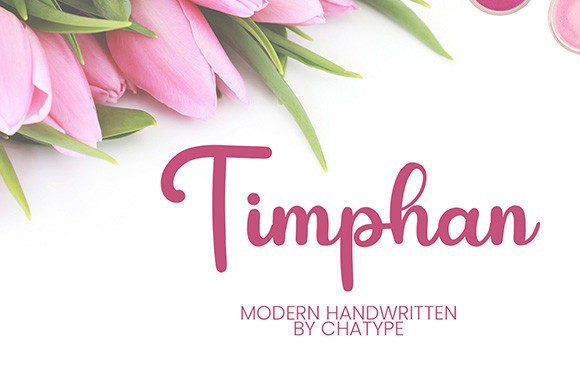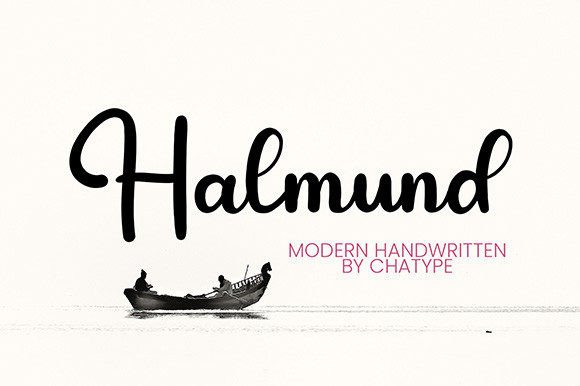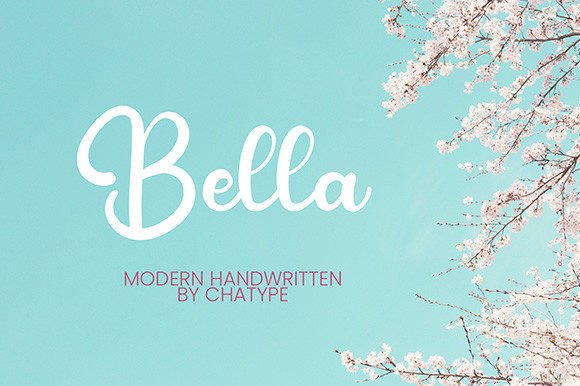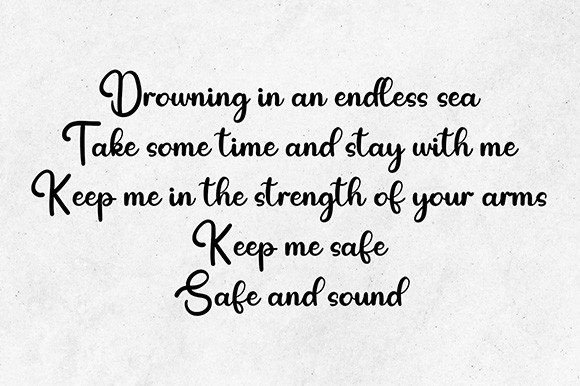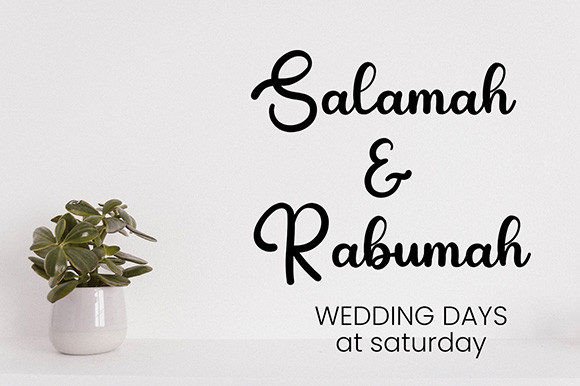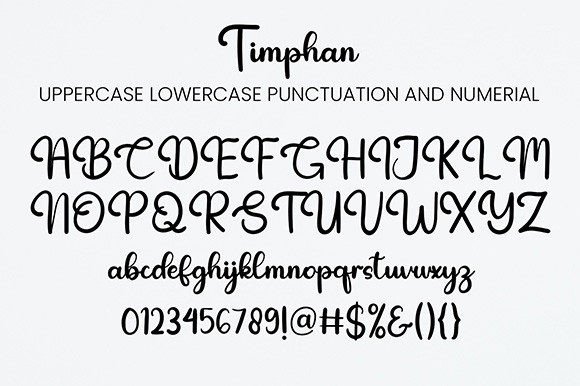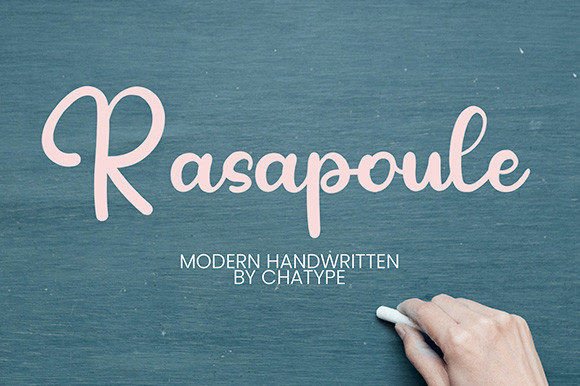
Timphan Font
About Timphan Font
The Timphan Font Download introduces a stylish handwritten typeface designed to bring elegance and versatility to your projects. With its modern curves and handcrafted appeal, this font adds personality and charm to everything from branding to personal crafts. Whether you are creating blog headers, fashion graphics, or memorable invitations, Timphan delivers a unique and expressive look.
This font was created with both designers and everyday users in mind. Its natural flow ensures that it looks beautiful in print as well as digital use, while its clean readability keeps designs professional and polished. With Timphan, your projects can reflect both style and personality effortlessly.
Features of Timphan Font
The Timphan Font Download includes a range of features that make it a standout choice:
• Handwritten script style with smooth, modern lines
• Versatility across digital and print projects
• Elegant yet casual look that adapts to multiple themes
• Great readability even in smaller sizes
Best Uses for Timphan Font
This font is highly adaptable, making it ideal for creative professionals and hobbyists alike. Some popular uses for the Timphan Font Download include:
• Logos and branding – Give your brand an elegant, handcrafted touch
• Quotes and posters – Make inspiring words stand out with stylish lettering
• Fashion and apparel – Design clothing tags, t-shirts, or labels with personality
• Invitations and stationery – Perfect for weddings, parties, or special events
• Blog headers and digital design – Create memorable graphics for websites or social media
• Craft projects – Add flair to handmade goods, gifts, or decorations
Why Choose Timphan Font
The Timphan Font Download stands apart because it combines artistic style with practical usability. While many script fonts may lean heavily toward decoration, Timphan strikes a balance between elegance and readability. This makes it suitable not only for creative personal projects but also for professional branding and marketing materials.
Its smooth and stylish strokes give it a fashionable, modern edge, making it an excellent choice for designers who want to keep their work fresh and current. At the same time, its approachable design ensures that it works in both formal and casual contexts.
The Timphan Font Download is a stylish handwritten script that can bring creativity and sophistication to a wide range of projects. From logos to invitations, posters to fashion designs, this font adapts beautifully and ensures your work looks polished and unique.